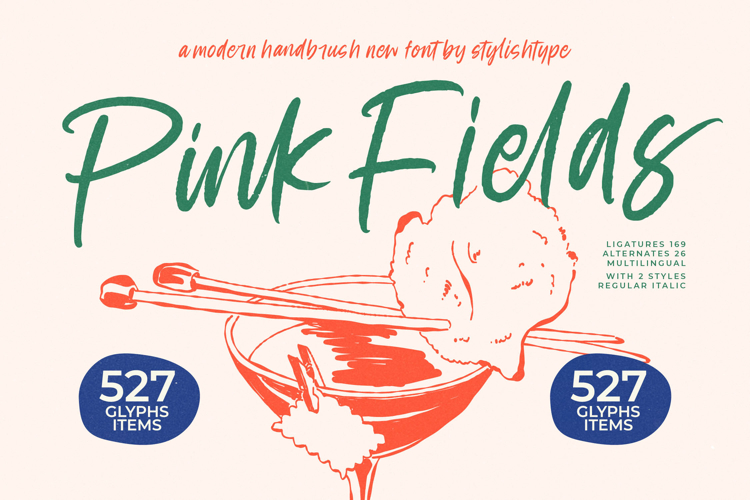
Pink Fields - Modern Handbrush Font
Inject immediate authenticity and bespoke energy into your projects. Pink Fields - Modern Handbrush Font is a vibrant, spontaneous script typeface that captures the essence of genuine, hand-rendered lettering. Its strokes possess a rough, uneven texture, simulating the natural drag and lift of a brush, providing an aesthetic that is both approachable and highly dynamic. This design is built for professionals who demand an organic, yet undeniably polished, look that stands out in a crowded digital landscape, ideal for creating an instant connection with the audience.